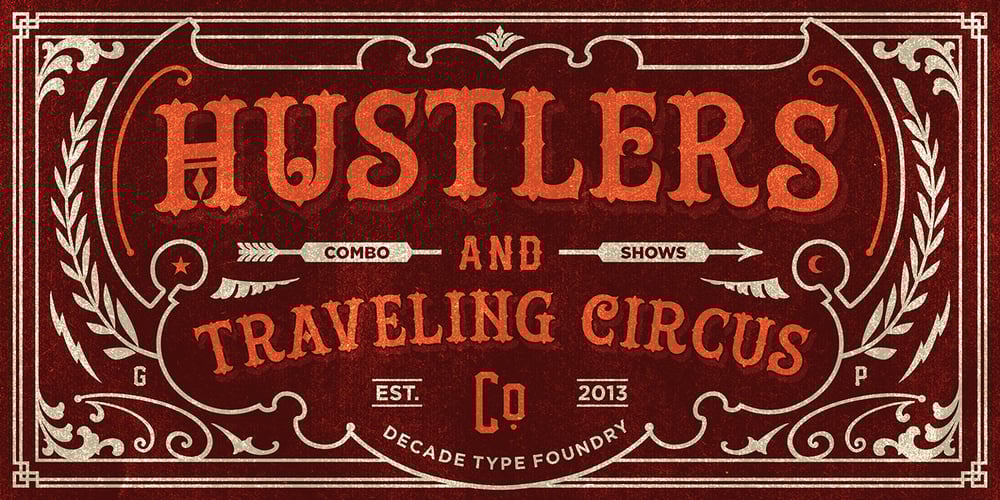
Hustlers
Hustlers font
Hustlers Font Family was designed by Gilang Purnama Jaya and published by Decade Typefoundry. Hustlers contains 2 styles and family package options. Hustlers™ was inspired by carnival, circus and tattoo signs shop from the late 1800’s. It works well with normal size text, but works even better for large displays, short words, or just to incorporate a few or single characters in a design.